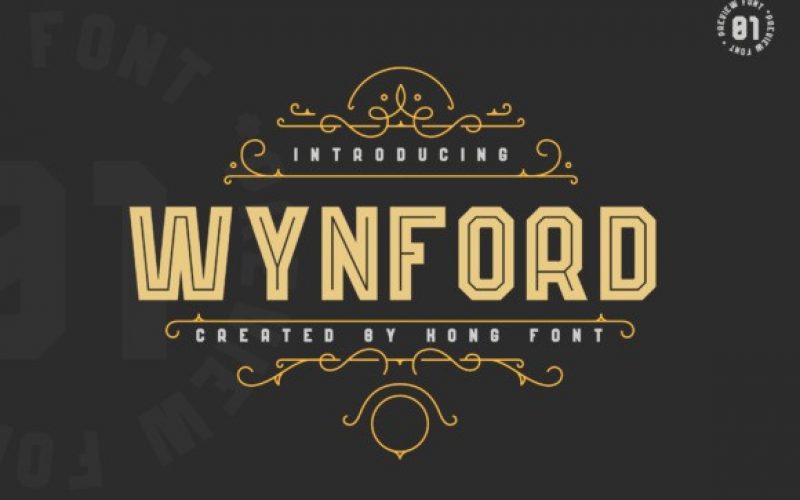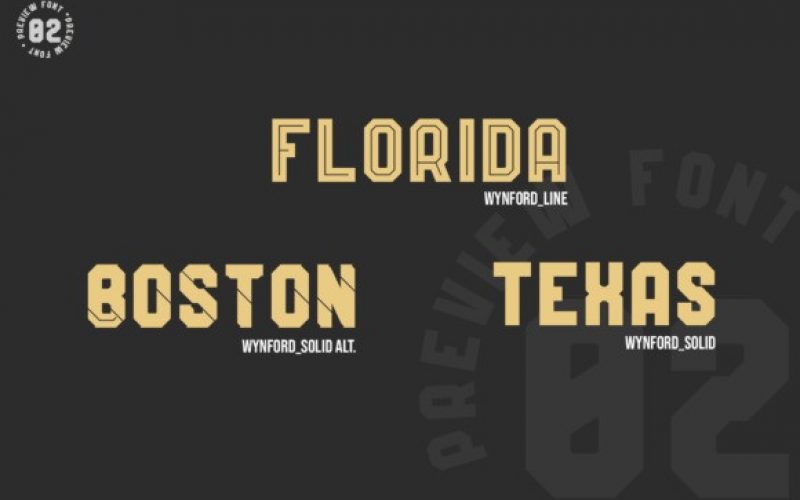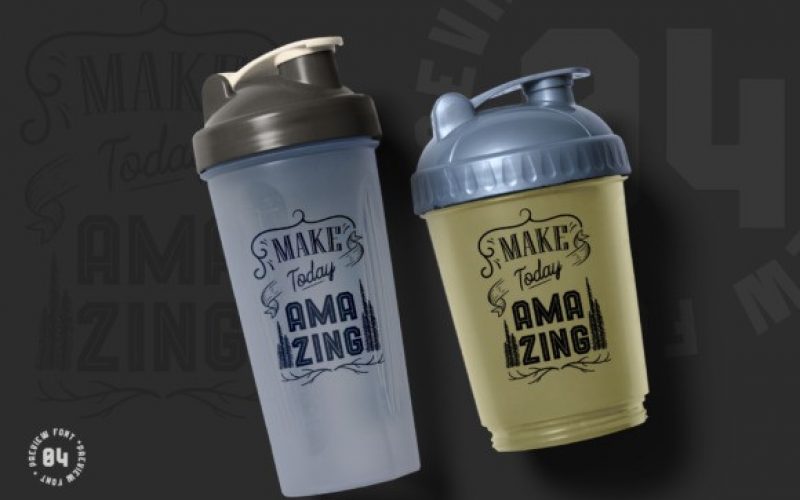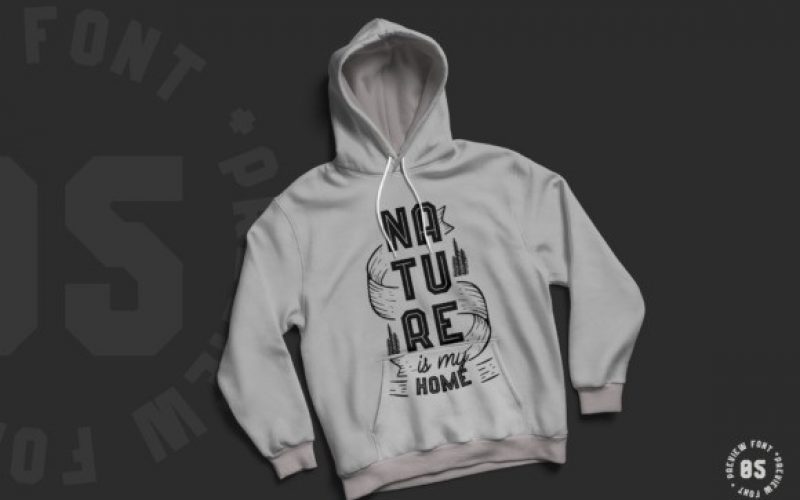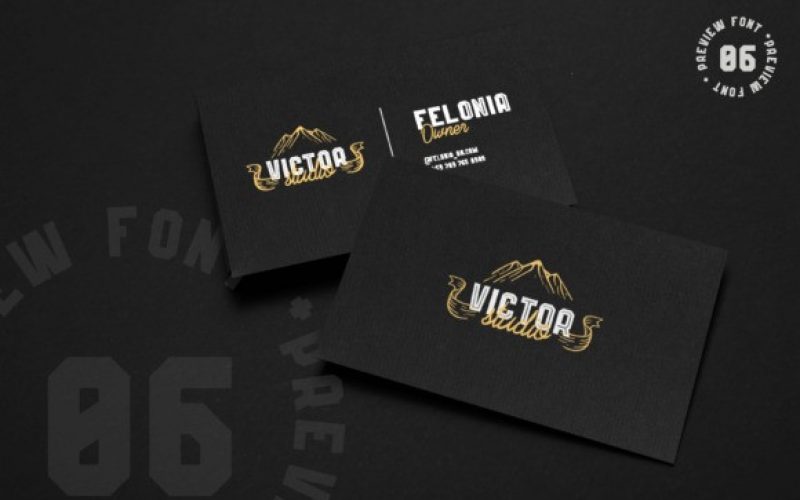
Wynford Display Font
Wynford simplifies elegance into one truly outstanding serif font. Whether you’re looking for fonts for Instagram or calligraphy scripts for DIY projects, this font will turn any creative idea into a true piece of art!